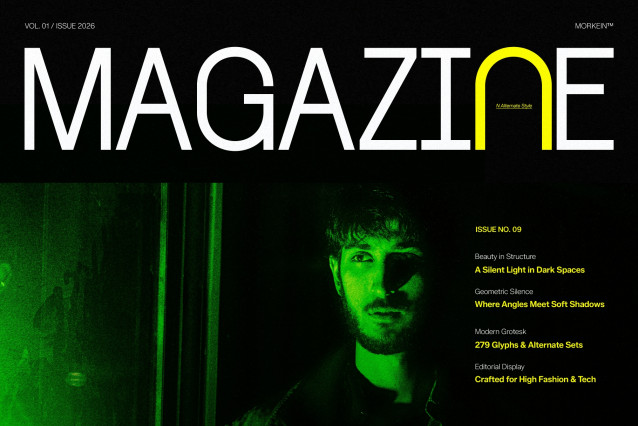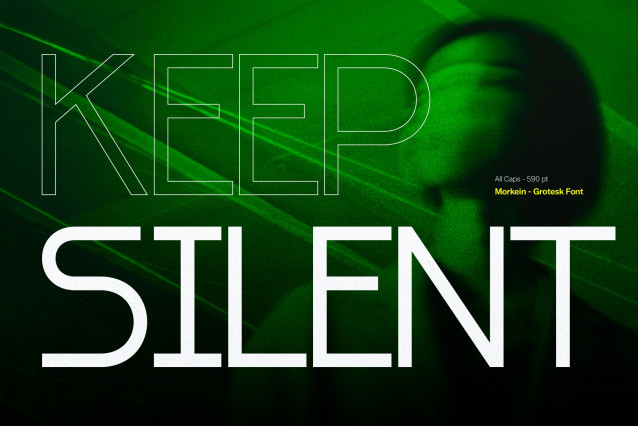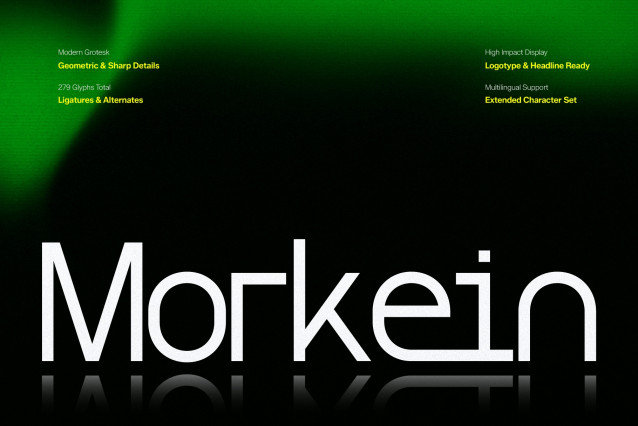
Morkein Geometric Font
Morkein Geometric Font, from Gracetypestudio, suitable for any projects such as: logos, branding projects, homeware designs, product packaging, mugs, quotes, posters, shopping bags, t-shirts, book covers, name card, invitation cards, greeting cards, label, photography, watermark, special events, and all your other lovely projects that need a sans Font taste.